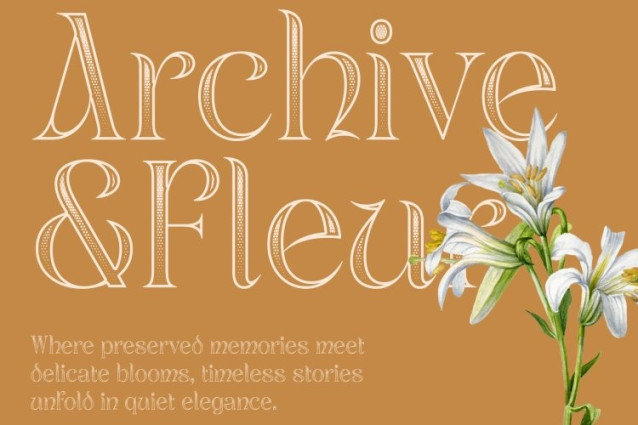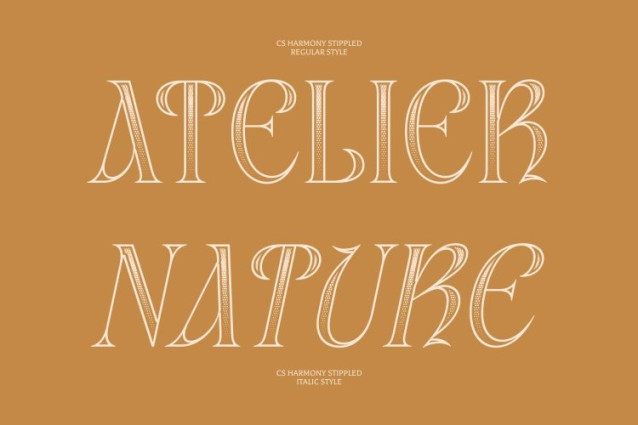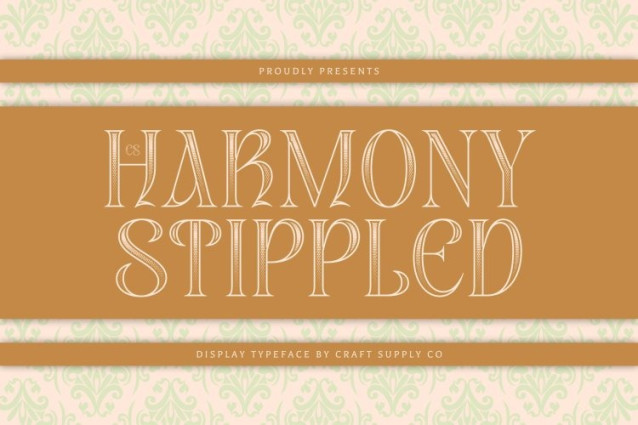
CS Harmony Stippled Font
CS Harmony Stippled Font – This is a refined serif display font that captures the elegance and visual beauty of uncial-inspired letterforms. Characterized by rounded, flowing shapes and graceful proportions, this font reflects the artistic influence of traditional calligraphy while presenting a modern typographic style. The addition of a stippled texture introduces a delicate dotted surface that enriches the design with subtle depth and a handcrafted aesthetic.
Elegant Letterforms with Artistic Influence
The soft curves and balanced strokes of create a harmonious and sophisticated typographic presence. Inspired by historical script traditions, its uncial structure conveys warmth and artistry, while the stippled detailing enhances the letterforms with gentle texture, giving the font a refined and visually engaging character.
Versatile for Elegant Design Applications
This font adapts beautifully across a wide range of creative uses. From formal invitations and editorial design to luxury branding and packaging, its elegant appearance adds a touch of sophistication and timeless charm. The combination of classic influence and textured finish ensures it remains visually captivating in both print and digital environments.
Perfect for Sophisticated Branding and Design
Whether used for high-end branding, wedding invitations, editorial headlines, or decorative typography, elevates visual compositions with elegance and charm. Its fusion of uncial heritage and stippled texture makes it a compelling choice for designers looking to blend tradition with contemporary sophistication.